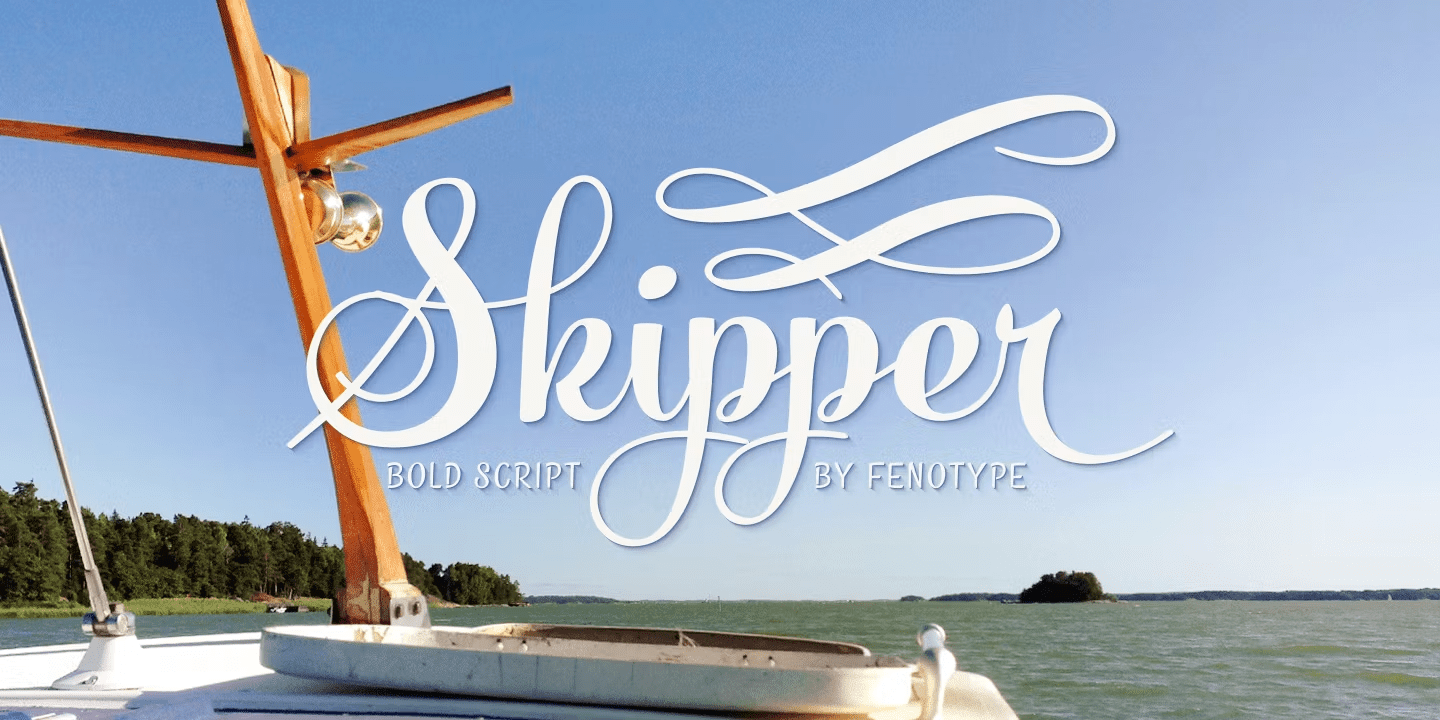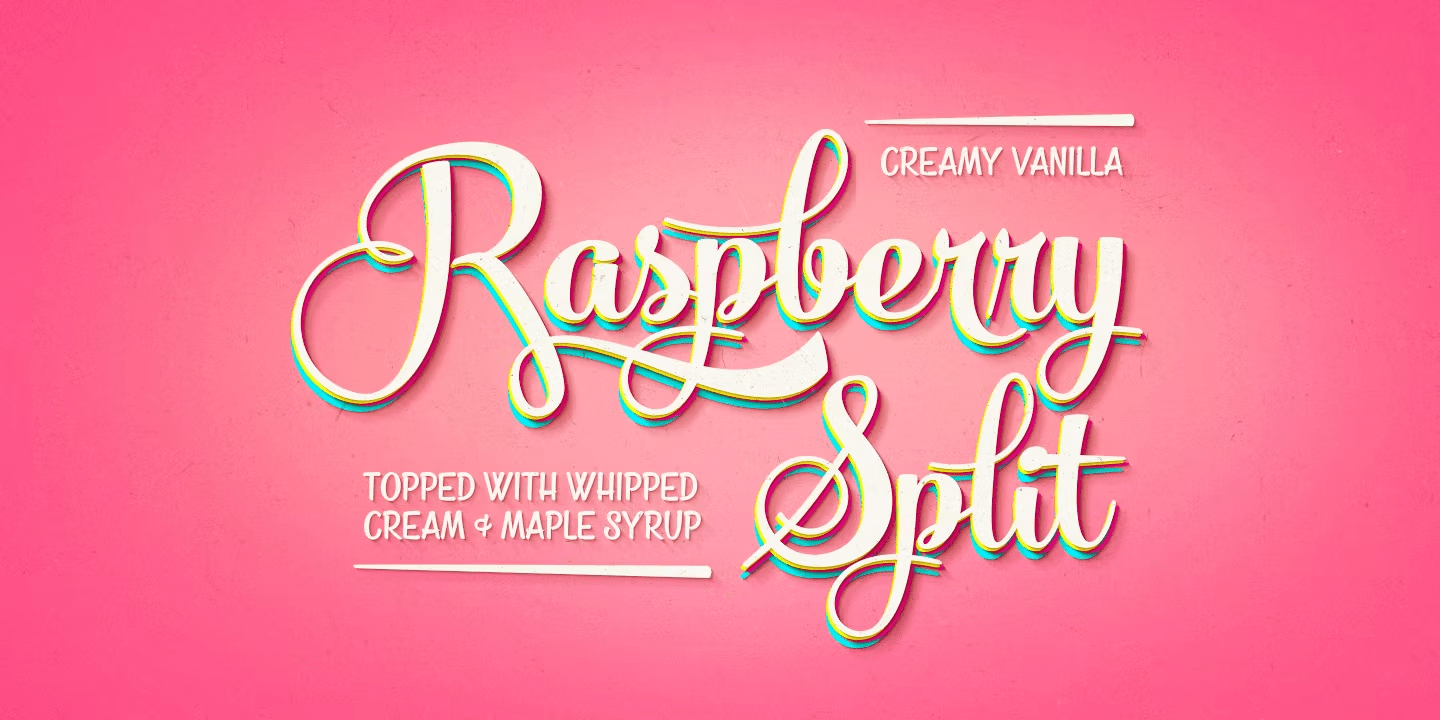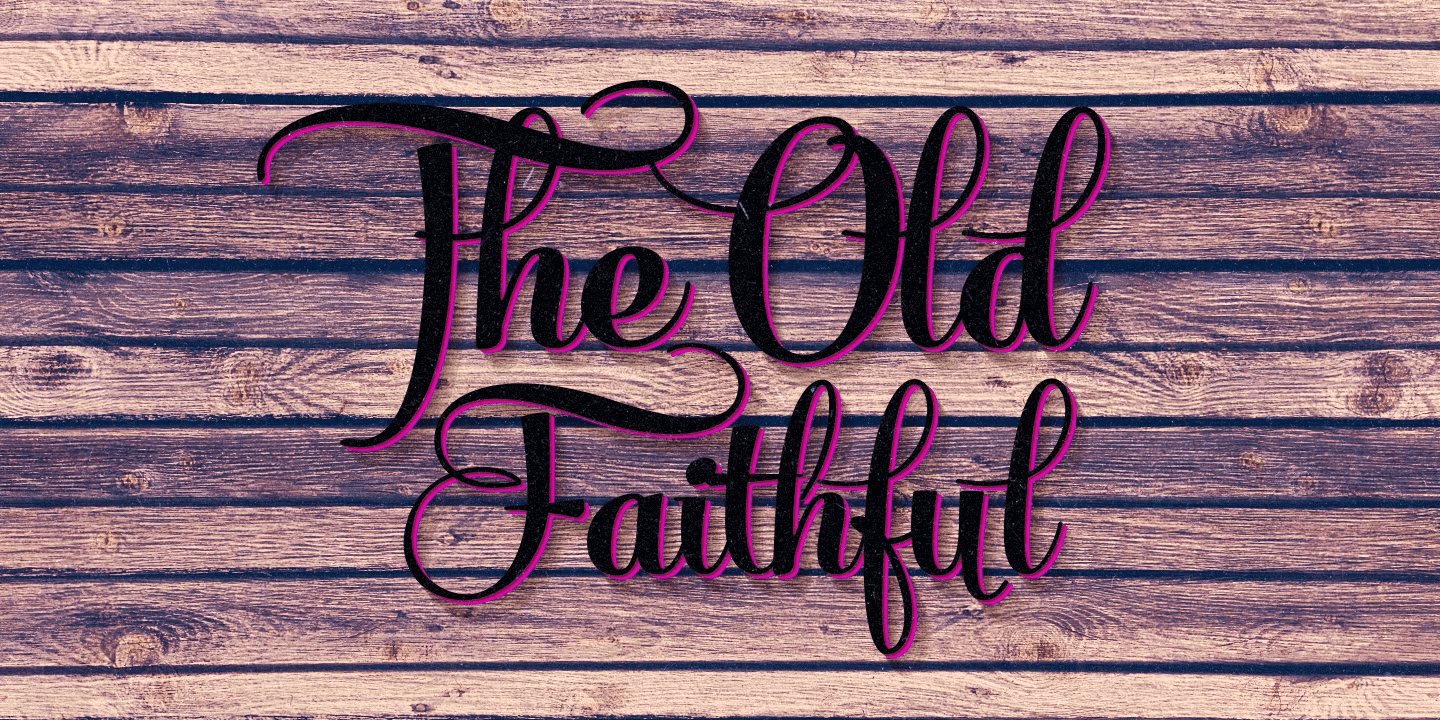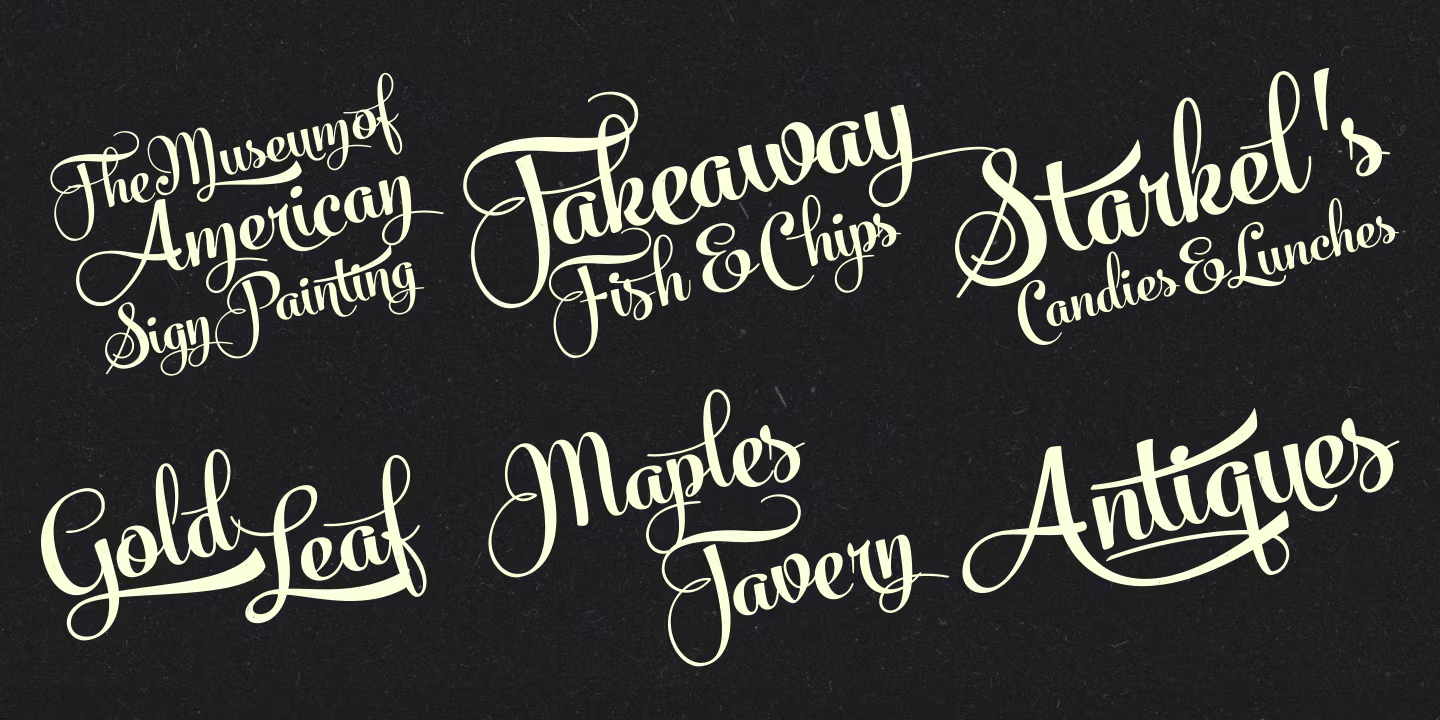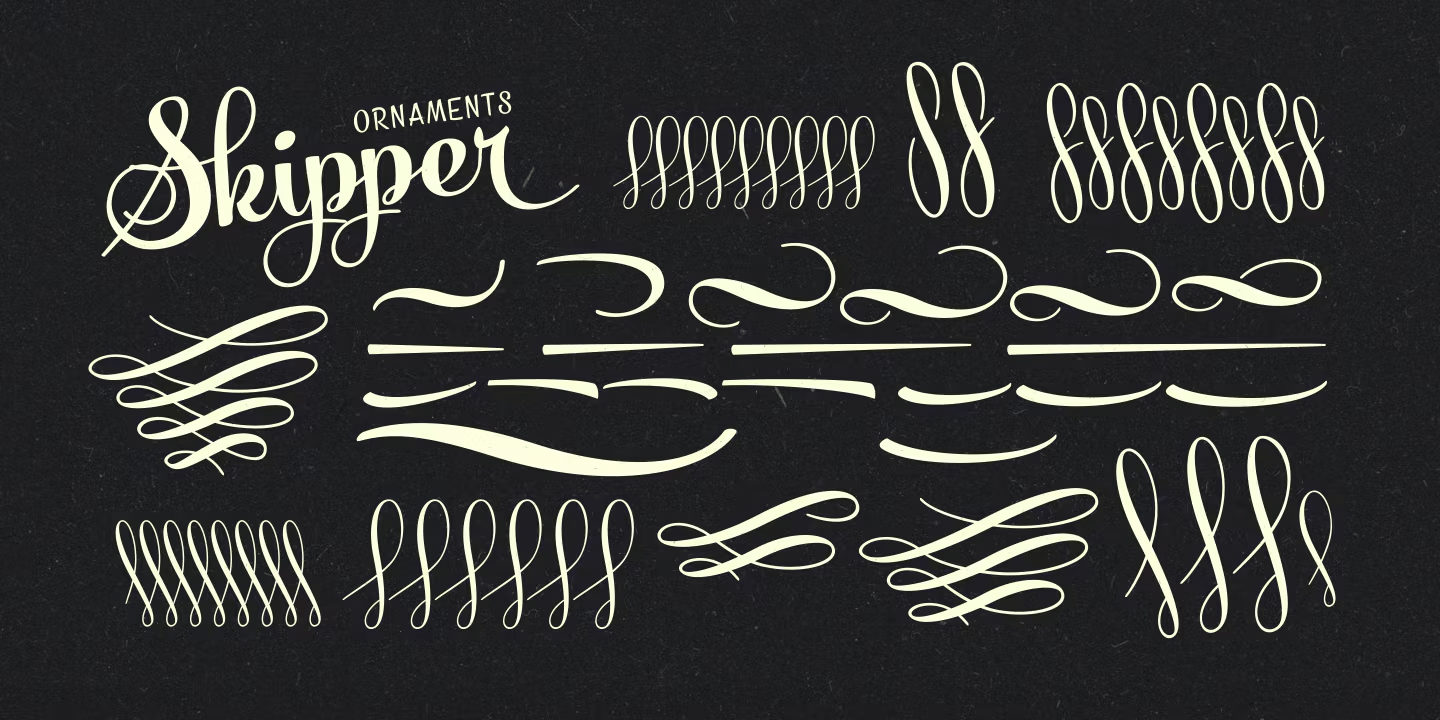
Skipper
Skipper is a bold and flowing connected script.
Skipper is equipped with three alternate characters for every basic letter: click on Swash, Stylistic or Titling Alternates on any OpenType savvy programs to create custom looking designs.
Inside Skipper there's a set of 35 ornaments designed to support the font. Access the ornaments from the Glyph Palette.